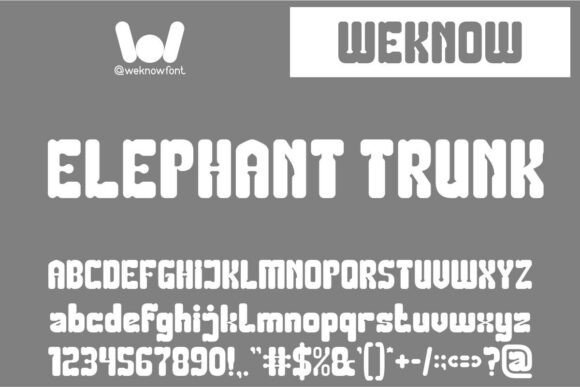
Get Ready to Unleash Your Creativity with the Elephant Trunk Font
Enter the Elephant Trunk Font, a charming sans-serif display font that’s sure to become your new go-to. With its playful, rounded attributes, this versatile typeface is the perfect addition to any design project. Whether you’re looking to add a dash of personality to a corporate identity or create a whimsical atmosphere in a children’s book, the Elephant Trunk Font has got you covered. As a designer, you’ll appreciate its multifaceted uses and the ease with which it can elevate your creative endeavors.
Elephant Trunk Font Key Features
- Size: Supports a wide range of font sizes, from 8 to 1000 points, making it suitable for various design applications.
- Unique Characteristics: The font features a unique, hand-drawn style with an elephant trunk-inspired design element, adding a touch of whimsy and playfulness to any text.
Designer Review: Elephant Trunk Font
Overall, I think the Elephant Trunk Font has some great qualities, but it’s not without its limitations. Let’s start with the positives.
- ✨ Unique style: The Elephant Trunk Font has a distinct, hand-drawn feel that sets it apart from more common fonts. This makes it a great choice for projects where you want to add a touch of personality.
- ✨ Versatility: Despite its quirky style, the font is surprisingly versatile and works well in a variety of contexts, from logos to body text.
However, there are some limitations to consider.
- ⚠️ Limited legibility: At smaller font sizes, the Elephant Trunk Font can become difficult to read, which may limit its use in certain applications.
- ⚠️ Limited character set: The font’s character set is relatively small, which may not be suitable for projects that require a wide range of languages or special characters.
Overall, I think the Elephant Trunk Font is a great choice for projects where you want to add a touch of whimsy and personality. However, it may not be the best choice for projects that require high legibility or a wide range of characters.
The Elephant Trunk Font is perfect for:
1. Children’s book illustrations and designs.
2. Whimsical and playful branding materials.
3. Creative and artistic projects that require a unique and eye-catching font.